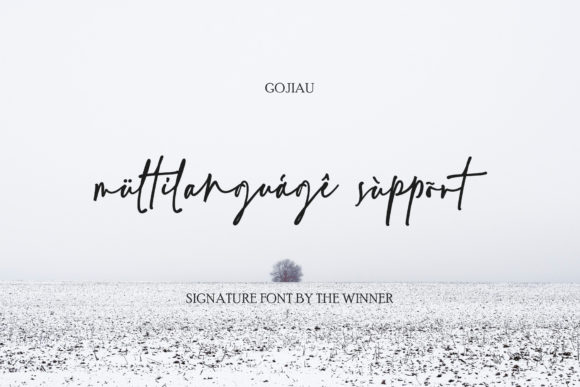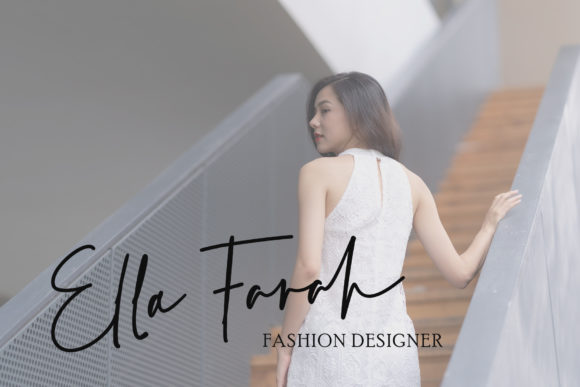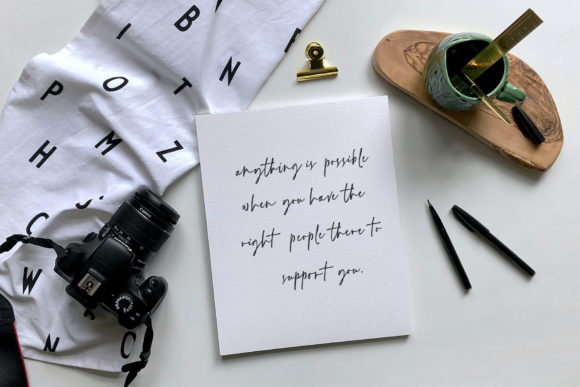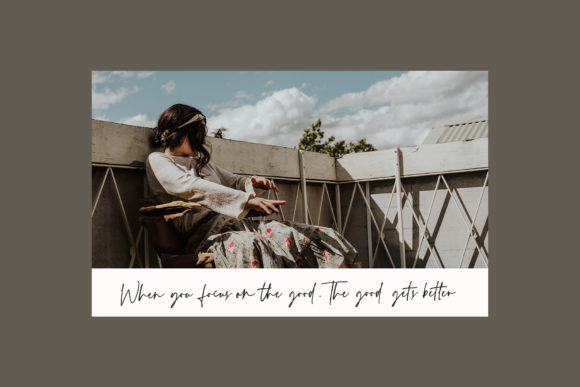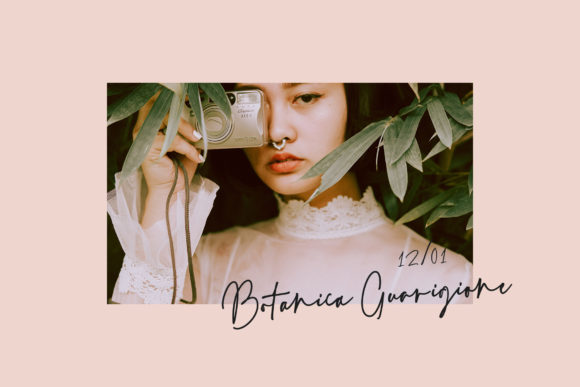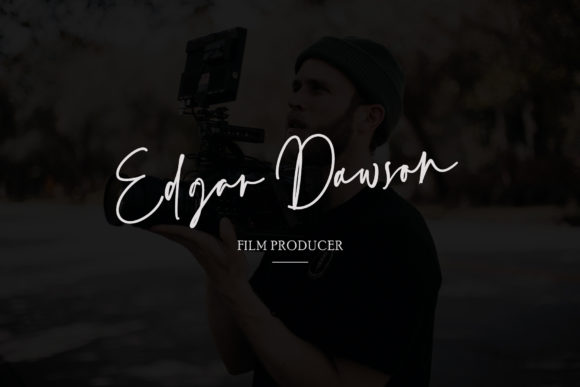
Gojiau Font: The Perfect Addition to Your Design Arsenal
Gojiau is a beautiful, paint brushed script font that has been making waves in the design community. Whether you’re a digital designer, a crafter, or someone who loves making presentations or greeting cards, Gojiau is the perfect addition to your design arsenal. In this article, we’ll dive into the world of Gojiau font, exploring its features, uses, and benefits.
What is Gojiau Font?
Gojiau is a stunning script font that mimics the look of hand-painted brush strokes. Its unique, fluid design makes it perfect for adding a personal touch to any design project. The font is highly versatile, making it suitable for a wide range of applications, from digital designs to craft projects.
Features of Gojiau Font
- Beautifully Crafted: Gojiau font is meticulously designed to resemble hand-painted brush strokes, giving it a unique and artistic feel.
- Highly Versatile: The font is suitable for various design projects, including digital designs, craft projects, presentations, and greeting cards.
- Easy to Read: Despite its artistic design, Gojiau font is easy to read, making it perfect for use in body text or headings.
Uses of Gojiau Font
Gojiau font is perfect for a wide range of design projects, including:
- Digital Designing: Use Gojiau font to add a personal touch to your digital designs, such as social media graphics, blog posts, and website headers.
- Crafting: Gojiau font is perfect for crafters who love making handmade cards, scrapbooking, and other paper crafts.
- Presentations: Add a touch of elegance to your presentations with Gojiau font, making them more engaging and memorable.
- Greeting Cards Making: Use Gojiau font to create beautiful, handmade greeting cards for special occasions.
Benefits of Using Gojiau Font
- Adds a Personal Touch: Gojiau font adds a personal touch to your design projects, making them more unique and special.
- Enhances Creativity: The font’s artistic design inspires creativity, helping you to think outside the box and come up with innovative design ideas.
Tips for Using Gojiau Font
- Experiment with Different Sizes: Try using Gojiau font in different sizes to create visual interest and hierarchy in your designs.
- Pair with Other Fonts: Experiment with pairing Gojiau font with other fonts to create a unique and harmonious design.
- Use in Combination with Images: Use Gojiau font in combination with images to add an extra layer of meaning and visual interest to your designs.
| Font Name | Gojiau Font |
| Author | The1stWinner |
Gojiau font is a beautiful, paint brushed script font that is perfect for designers and crafters. Its unique design, versatility, and ease of use make it an excellent addition to any design arsenal. Whether you’re a digital designer, a crafter, or someone who loves making presentations or greeting cards, Gojiau font is sure to inspire your creativity and take your designs to the next level.